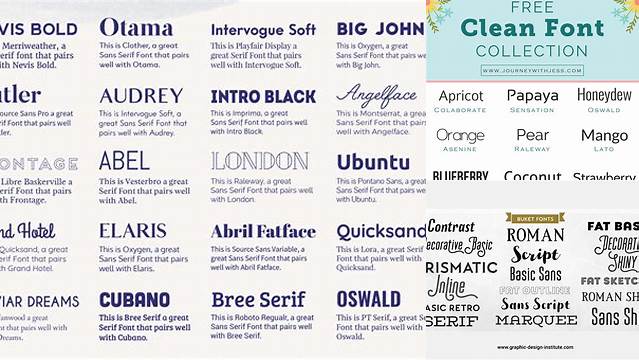
Clean Professional Fonts: Free Options For You!
Hey guys! Are you on the hunt for clean professional fonts that won't break the bank? Look no further! In today's digital age, typography plays a crucial role in shaping the visual identity of any project, whether it's a website, a presentation, or a marketing campaign. The right font can convey professionalism, readability, and brand personality, while the wrong font can make your content look amateurish and uninviting. Finding that perfect balance between aesthetics and functionality is key, and that's where the world of clean professional fonts comes in. In this comprehensive guide, we'll dive deep into the realm of free typography, exploring the importance of font selection, the characteristics of clean professional fonts, and where to find these hidden gems without spending a dime. We'll also delve into practical tips on how to effectively use these fonts in your projects, ensuring your designs not only look polished but also resonate with your target audience. So, buckle up and get ready to explore the exciting world of free and fantastic fonts!
Why Choosing the Right Font Matters
Choosing the right font is like picking the perfect outfit for an important meeting – it can make all the difference in how you're perceived. Your font choices communicate more than just the words themselves; they set the tone and personality of your message. Think of it this way: a playful, whimsical font might be perfect for a children's book, but it would look completely out of place on a corporate website. Similarly, an overly ornate or decorative font can distract from your content and make it difficult to read, especially in large blocks of text. When you select a clean, professional font, you're essentially telling your audience that you're serious, trustworthy, and detail-oriented. These fonts prioritize readability and clarity, ensuring that your message is easily understood and leaves a lasting positive impression. Moreover, consistent font usage across your brand materials – from your logo to your website to your social media graphics – helps create a cohesive and recognizable brand identity. This consistency builds trust and reinforces your brand's message in the minds of your audience. So, take the time to carefully consider your font choices, as they play a vital role in shaping your brand's perception and overall success.
Clean professional fonts are not just about aesthetics; they're also about functionality and accessibility. A well-chosen font enhances readability, making it easier for your audience to engage with your content. Think about the last time you encountered a website or document with a font that was difficult to decipher – it's frustrating, right? You probably didn't stick around for long. Readability is crucial, especially in digital formats where users have short attention spans. A clean font with clear letterforms and ample spacing allows the eye to move smoothly across the text, improving comprehension and retention. Furthermore, accessibility is a key consideration in modern design. Some fonts are simply not accessible to people with visual impairments or reading disabilities. By choosing fonts that adhere to accessibility guidelines, you can ensure that your content is inclusive and reaches the widest possible audience. This means selecting fonts with good contrast, clear distinctions between similar characters (like lowercase 'i' and 'l'), and appropriate character spacing. In addition to readability and accessibility, the right font can also enhance the overall user experience. A clean, professional font creates a sense of order and clarity, guiding the user through your content and making it more enjoyable to consume. This, in turn, can lead to increased engagement, higher conversion rates, and a stronger connection with your audience.
The impact of font choice extends beyond the visual appearance of your content; it also influences the emotional connection your audience forms with your brand. Fonts evoke emotions and associations, subtly shaping perceptions and attitudes. For example, a classic serif font like Times New Roman might convey a sense of tradition, authority, and trustworthiness, while a modern sans-serif font like Helvetica might evoke feelings of innovation, simplicity, and efficiency. Understanding the psychological impact of different font styles can help you align your font choices with your brand's personality and values. If you're building a brand that emphasizes creativity and playfulness, you might opt for a more unique and expressive font. However, if your brand is focused on professionalism and reliability, a clean and understated font is likely the better choice. Consider your target audience and the message you want to convey, and then select fonts that resonate with those specific goals. Remember, your fonts are a visual extension of your brand's voice, so choose them wisely. In addition to aligning with your brand's personality, your font choices should also complement your overall design aesthetic. A font that clashes with your color palette, imagery, or layout can create a jarring and unprofessional look. Strive for harmony and balance in your design, ensuring that your fonts work seamlessly with the other visual elements. This might involve experimenting with different font pairings – combining a heading font with a body text font, for example – to create a visually appealing hierarchy and rhythm. Ultimately, the goal is to create a design that is both aesthetically pleasing and effectively communicates your message, and your font choices play a critical role in achieving that balance.
Characteristics of Clean Professional Fonts
So, what exactly makes a font clean and professional? It's not just about how it looks at first glance; it's about a combination of factors that contribute to readability, clarity, and overall visual appeal. Clean professional fonts typically share several key characteristics. First and foremost, they prioritize readability. This means that the letterforms are clear, well-defined, and easy to distinguish from one another. There should be ample space between letters and words, preventing the text from feeling cramped or cluttered. The font should also be legible at various sizes, from headlines to body text, ensuring that your message remains clear regardless of the context. Another defining characteristic of clean professional fonts is their simplicity. These fonts tend to avoid overly decorative elements or flourishes that can distract from the content. They focus on clean lines, geometric shapes, and a minimalist aesthetic. This simplicity contributes to their versatility, making them suitable for a wide range of applications, from corporate documents to website designs. Professional fonts also prioritize neutrality. They aim to convey information in a clear and unbiased manner, without injecting too much personality or style. This neutrality is essential for maintaining a professional tone and ensuring that the font doesn't overshadow the message itself. However, neutrality doesn't mean boring! There are plenty of clean professional fonts that possess subtle character and charm, adding a touch of personality without sacrificing readability or professionalism.
When diving deeper into the characteristics of clean fonts, it's essential to understand the difference between serif and sans-serif fonts, as this is a fundamental distinction in typography. Serif fonts are characterized by the small strokes or